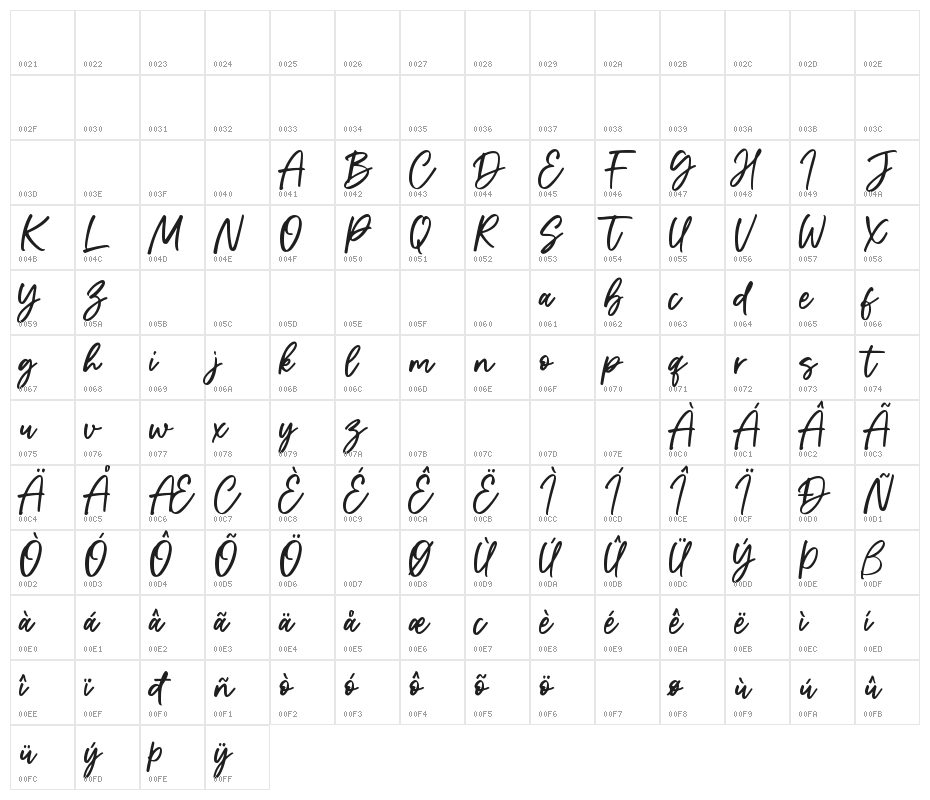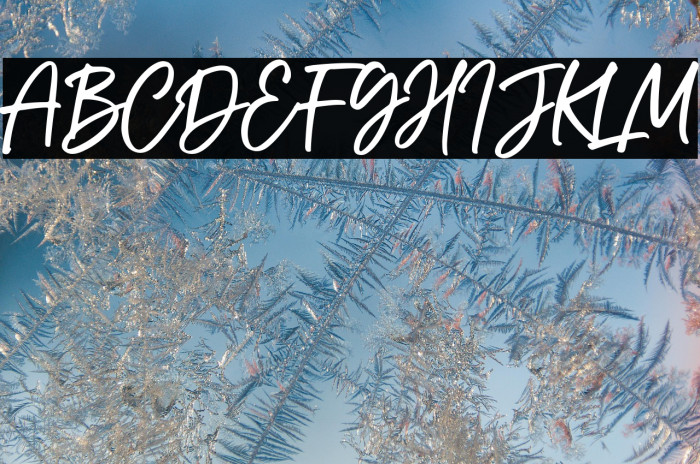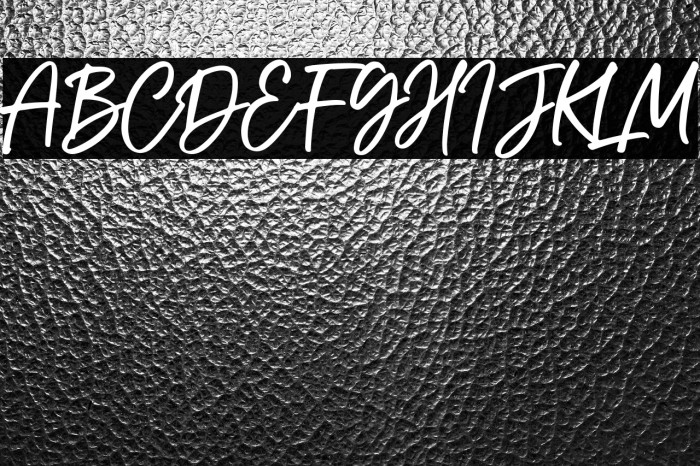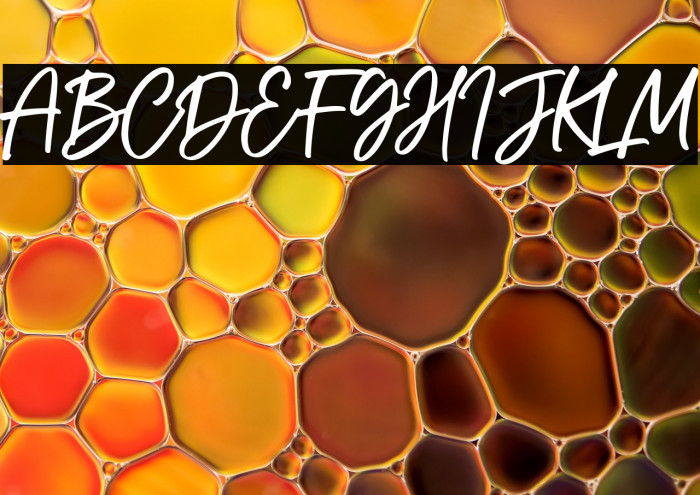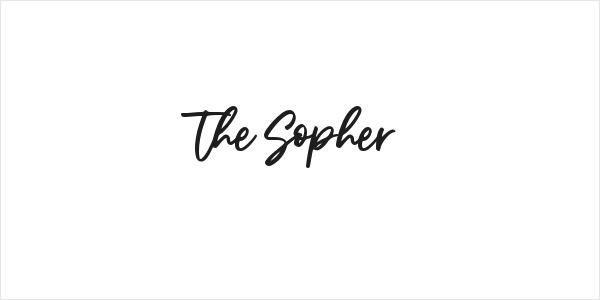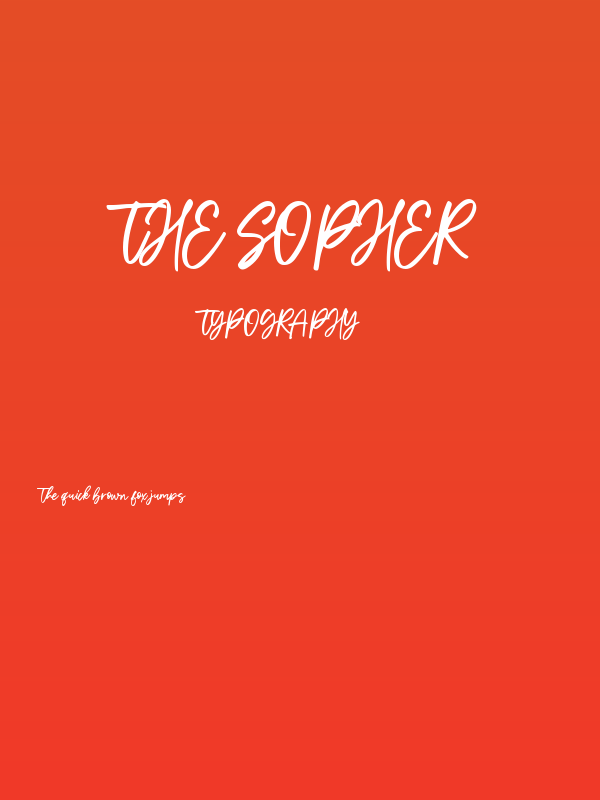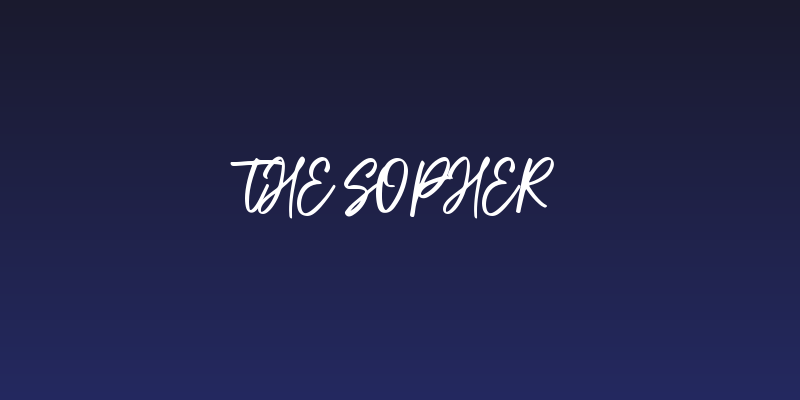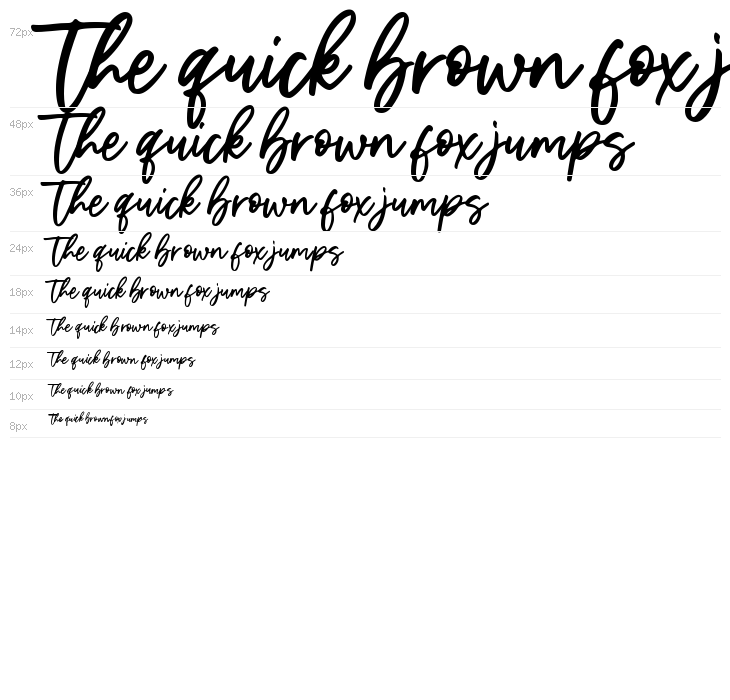
The Sopher Font
The Sopher Description
This font features a dynamic and flowing script style that mimics natural handwriting. The uppercase letters are elegantly elongated, while the lowercase letters maintain a consistent baseline, creating a harmonious balance. The strokes are smooth and slightly varied in thickness, adding a touch of sophistication and personality. The font's overall appearance is both casual and refined, making it versatile for various design applications. Its handwritten quality gives it a personal and approachable feel, suitable for projects that require a human touch.
| Use Case | Logos, Headlines, Invitations |
| Proposed Projects | Ideal for wedding invitations, greeting cards, personal branding, and social media graphics. |